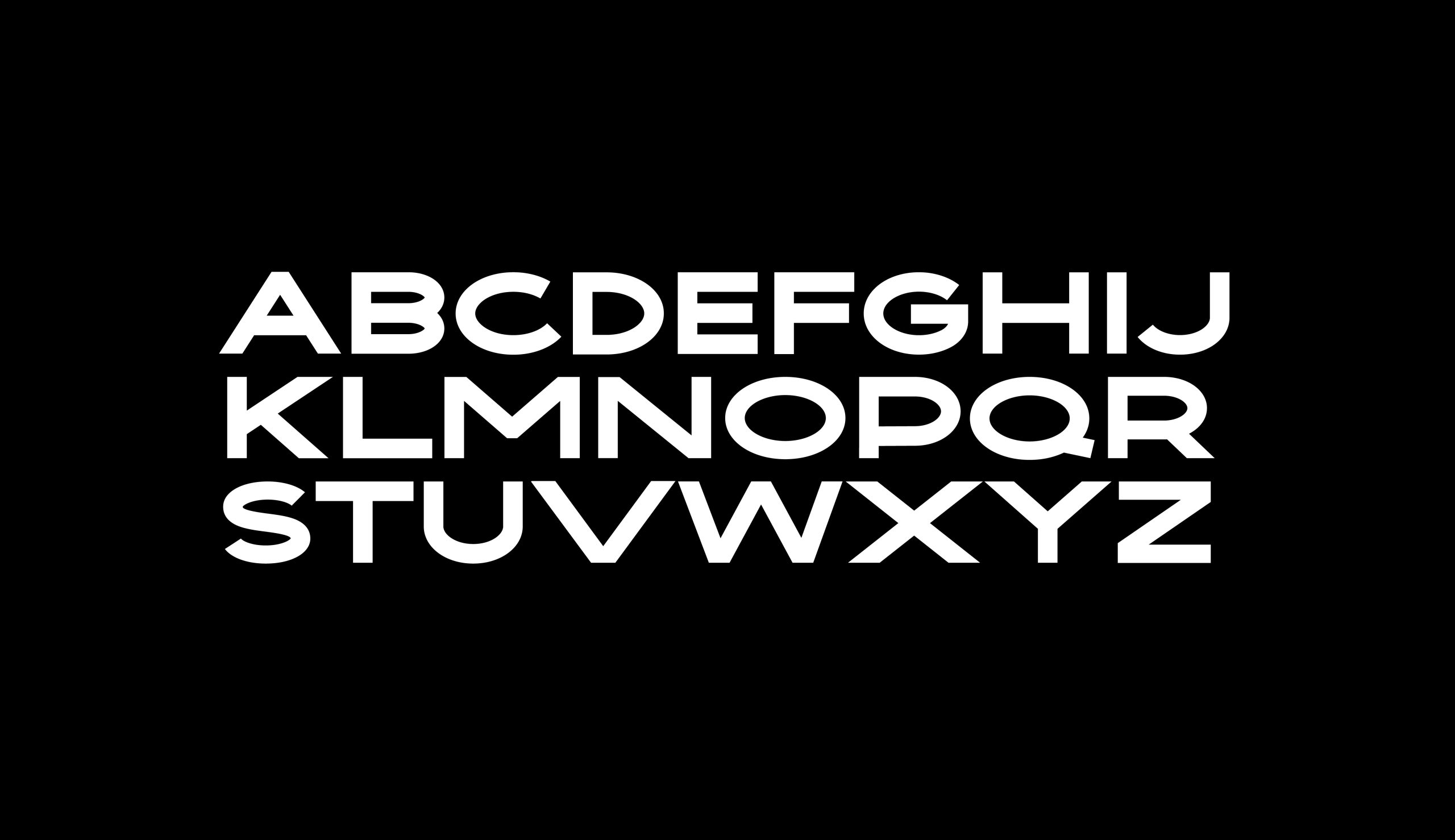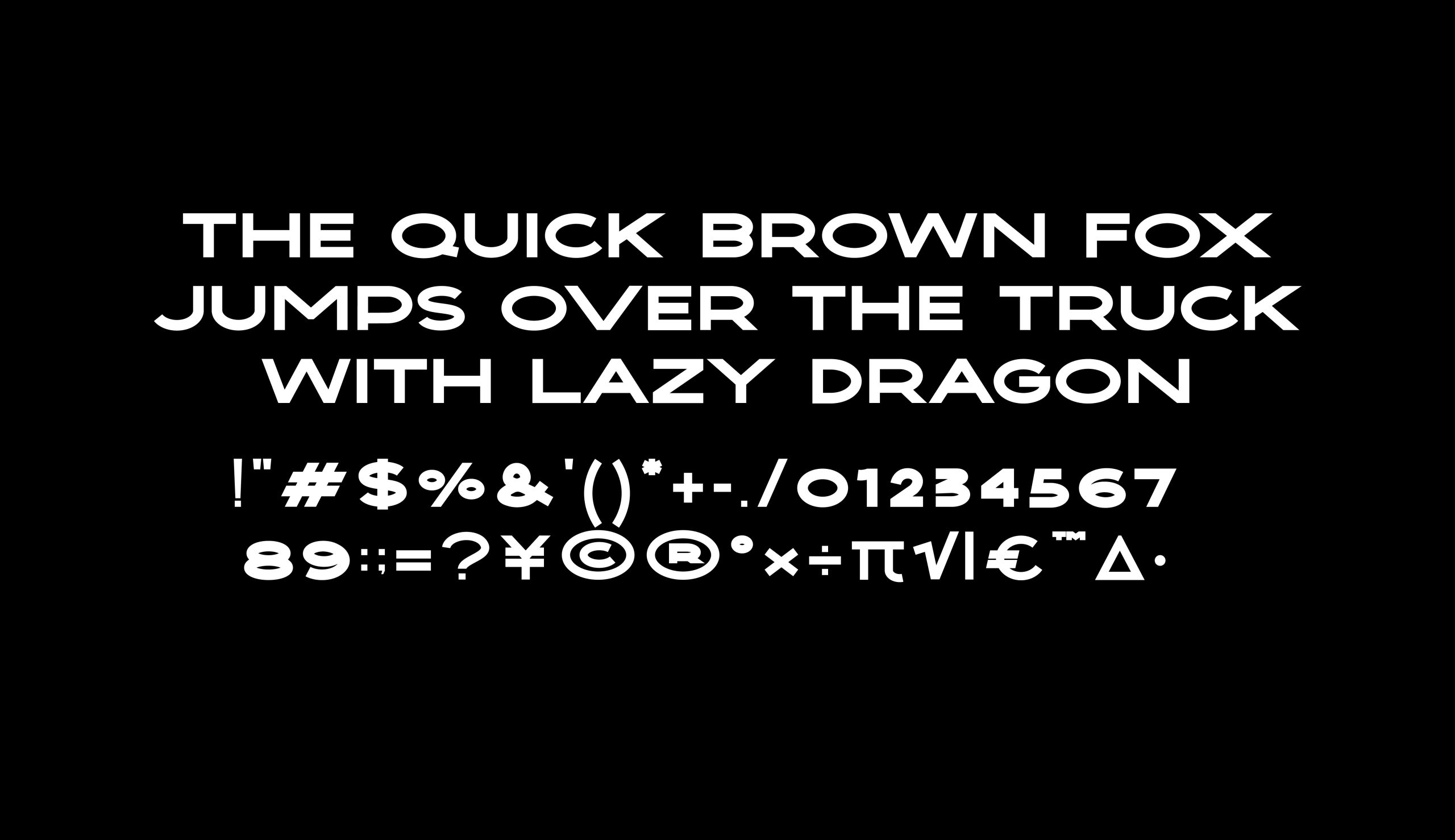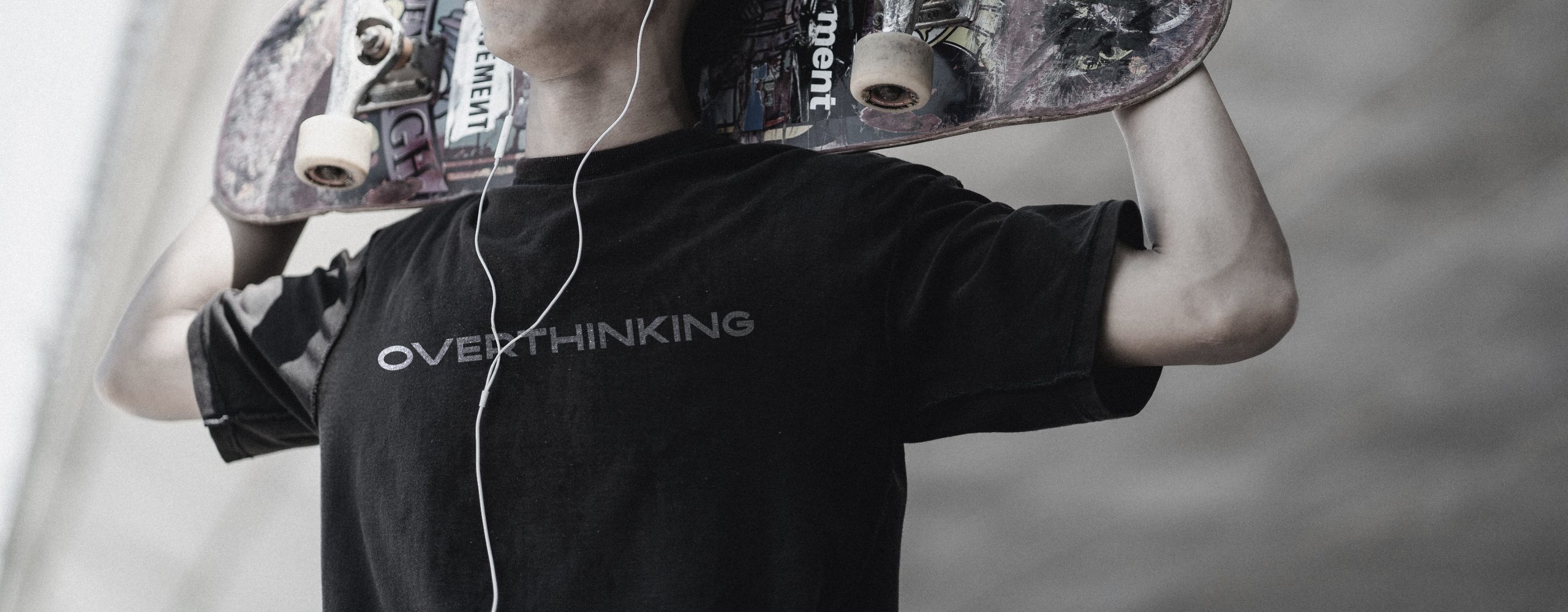
Nikea Sans Serif Font is a free all-caps sans serif font that is so versatile and looks great in just about any context. With smooth and clean lines and just a touch of contrast, this font works beautifully for logos, branding, and web headings.